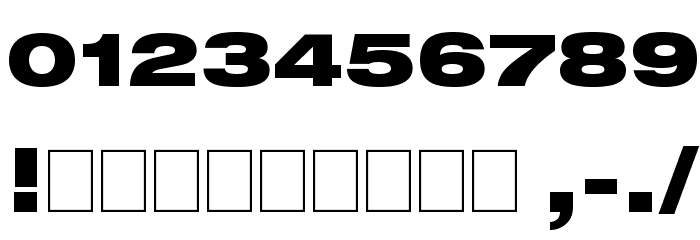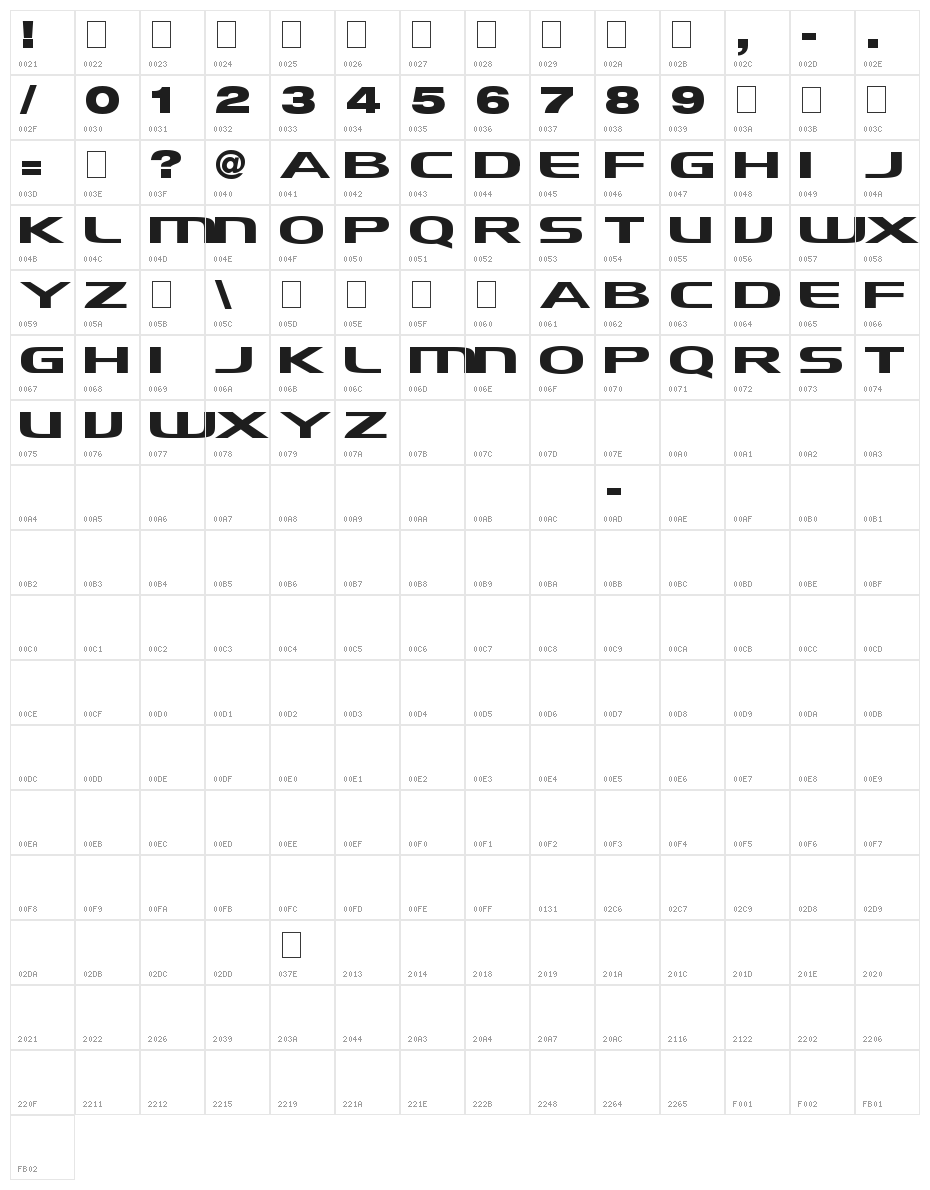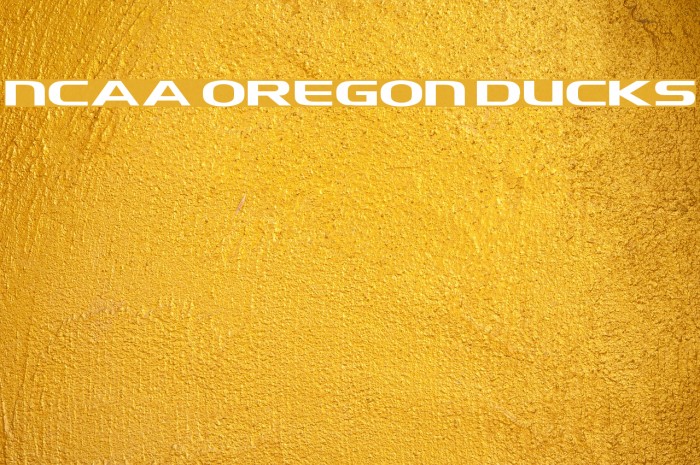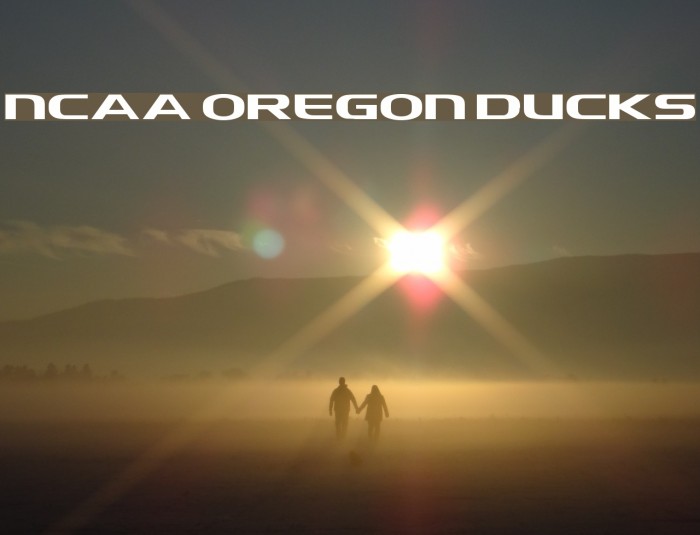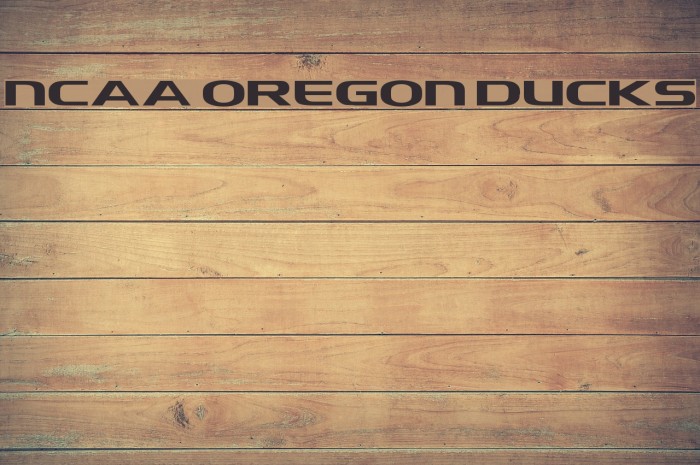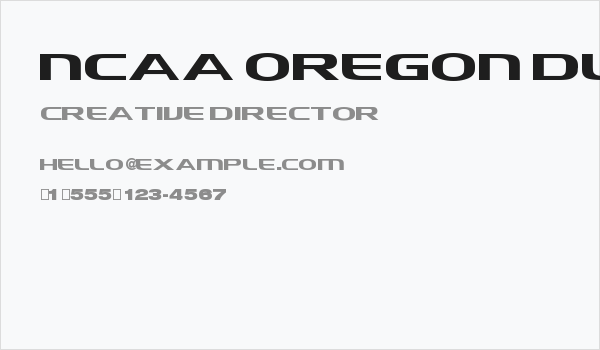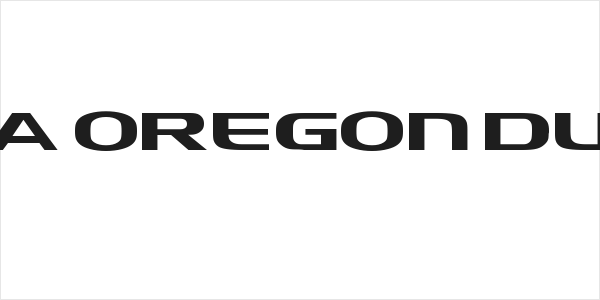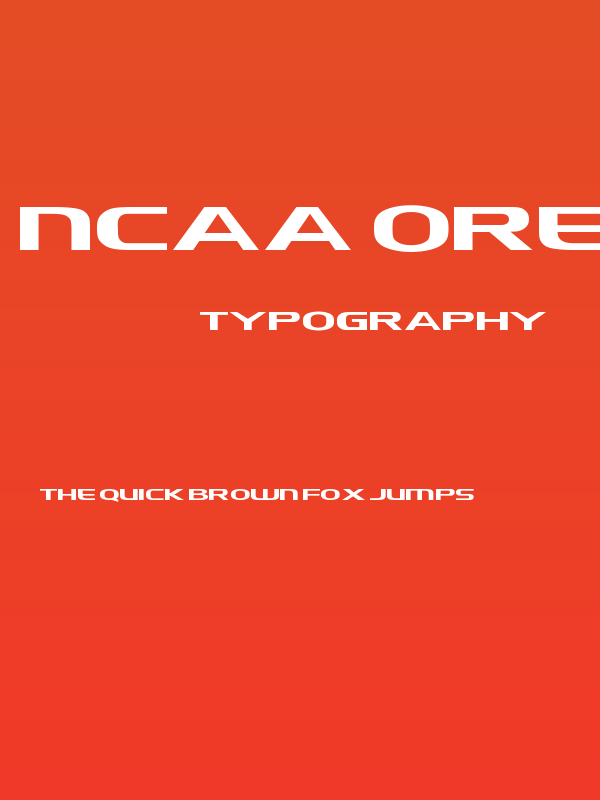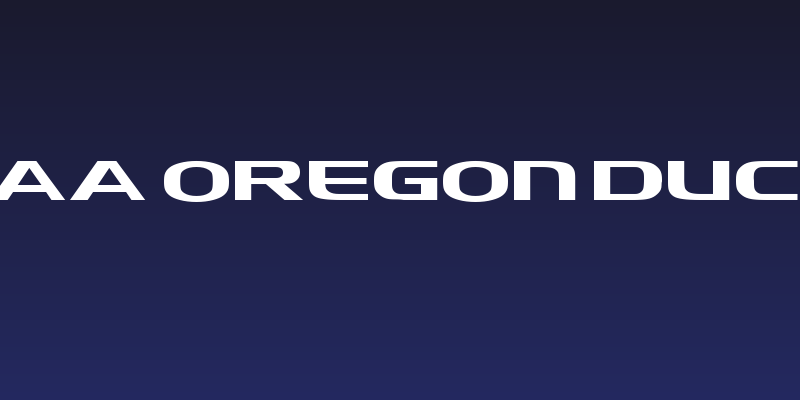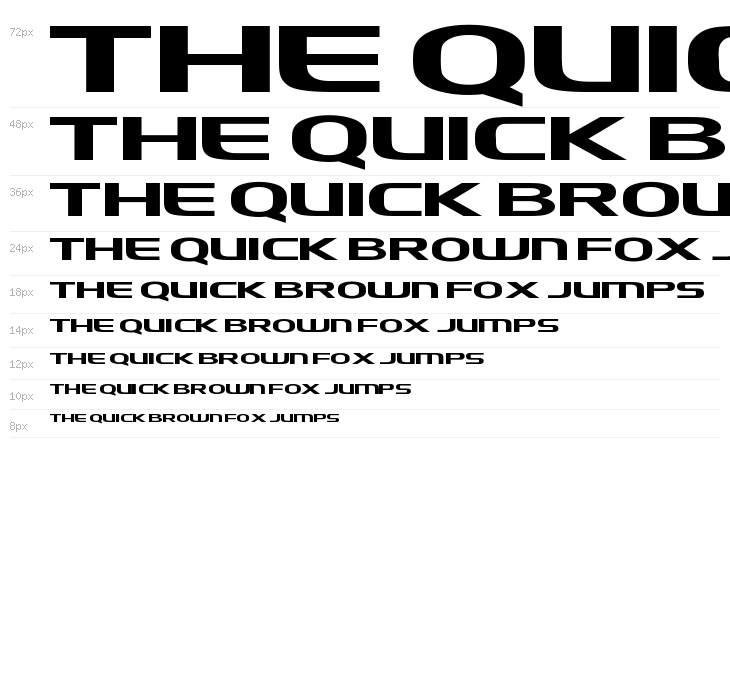
NCAA Oregon Ducks Font
NCAA Oregon Ducks Description
This font features a bold, modern design with a strong geometric influence. The characters are wide and slightly condensed, giving a robust and impactful appearance. The uppercase letters are particularly striking with their angular cuts and clean lines, while the lowercase letters maintain a consistent style, offering a harmonious blend of form and function. The numerals are equally bold, ensuring readability and a cohesive look across different uses. The special characters complement the overall design, making this font suitable for various applications where a contemporary and assertive style is desired.